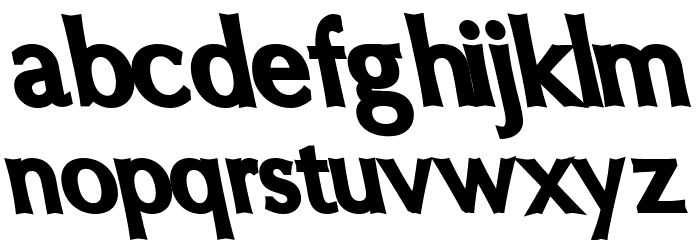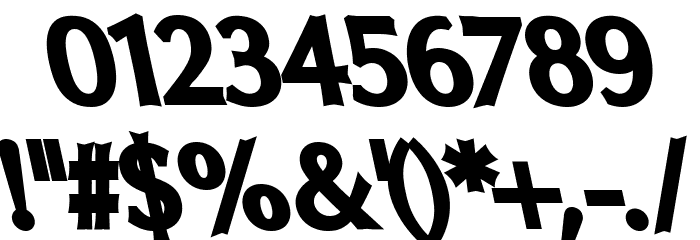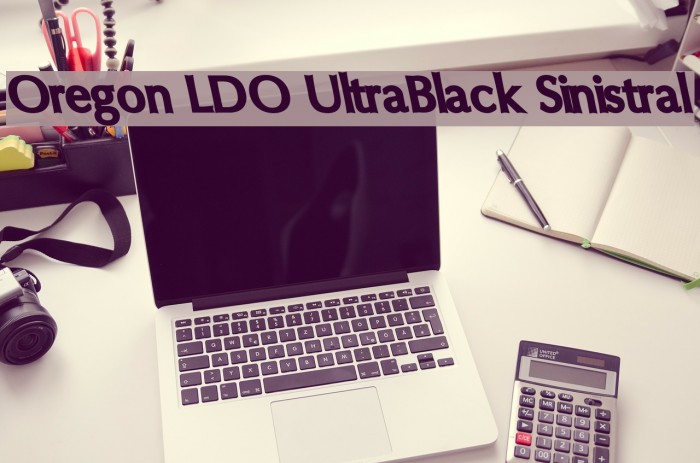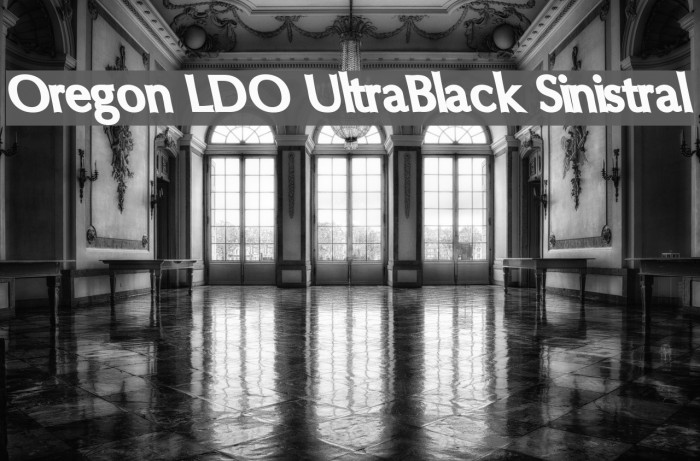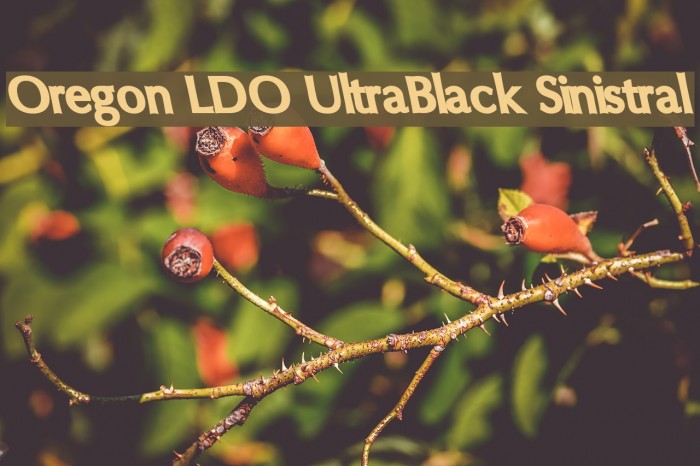
Oregon LDO UltraBlack Sinistral Font
This font features a bold and dynamic style with thick strokes and a slightly slanted orientation, giving it a sense of movement and energy. The characters are robust and impactful, making them stand out prominently. The uppercase and lowercase letters maintain a consistent weight, contributing to a cohesive appearance. The numerals are equally bold, ensuring readability and emphasis. Special characters are designed with the same boldness, integrating seamlessly with the rest of the font. This font's ultra-black weight and distinctive slant make it ideal for attention-grabbing designs.
A bold, slanted font with thick strokes and dynamic energy.
- Proposed Projects: Ideal for posters, headlines, branding, and any project requiring a strong visual impact.